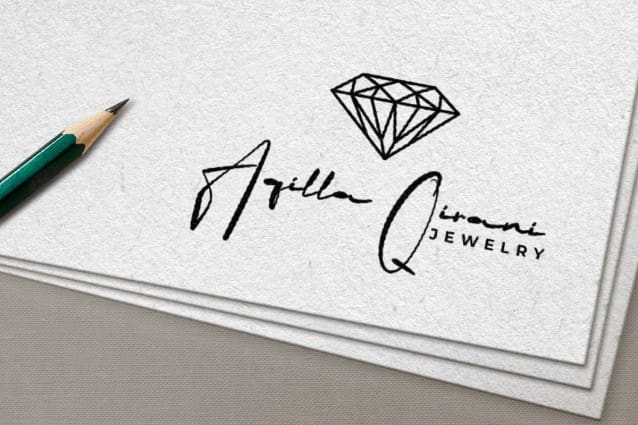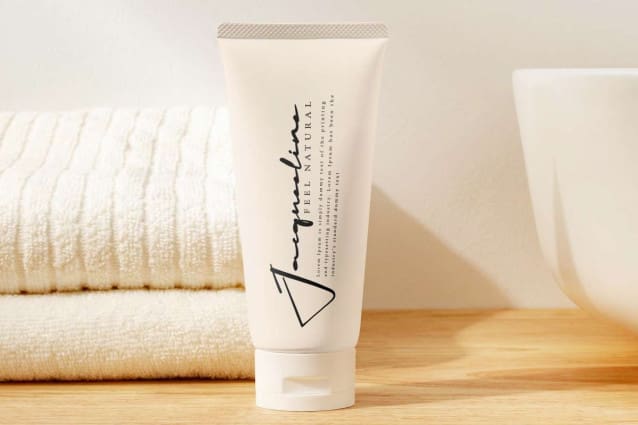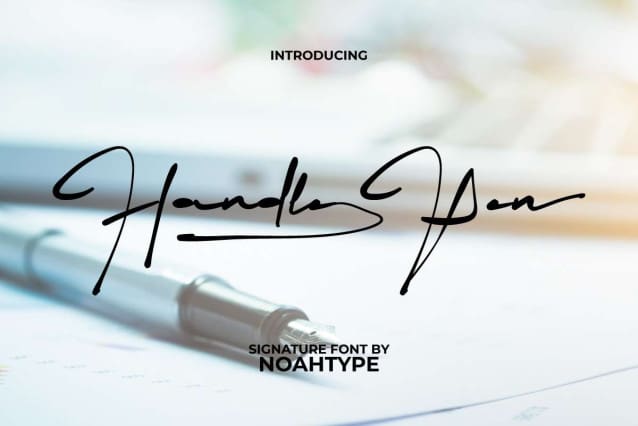
Handle Pen Font
Handle Pen Font is a bold handwriting signature font from NoahType Studio. Each letter that has a circle shape in this font is filled in black, leaving a mysterious impression for you to guess what letter it is. It will be suitable for any industries, such as beauty product, event or wedding organizer, fashion, furniture, jewelry and accessories, hotel and resort, printing, publishing, etc.
Handle Pen Font includes full set of Uppercase and Lowercase Basic Characters, Numerals, Punctuation, Ligature, and Swoosh characters. Get inspired and use this exclusive font in your various designs, such as brand image, brochure, custom design, invitation, product packaging, quote, screen printing, stationery, website, and more!